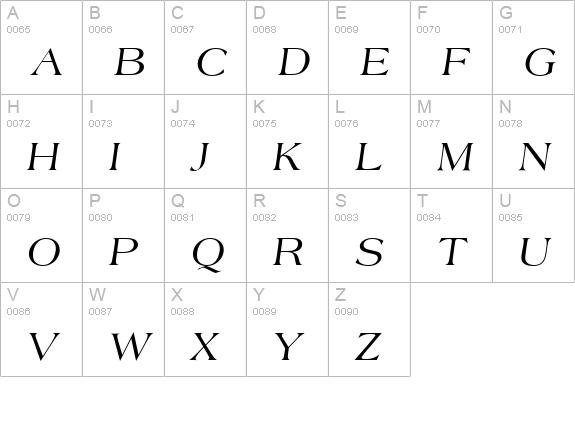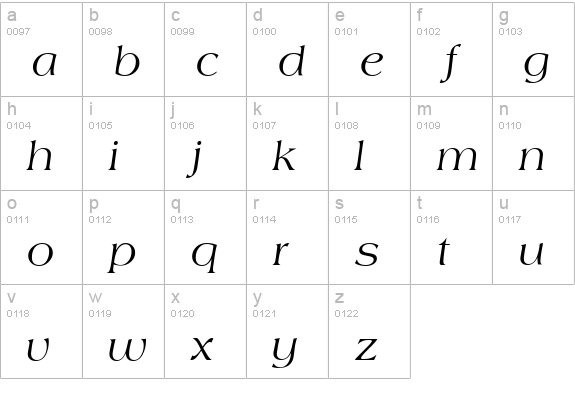
Almeria-Italic Font Details
Almeria-Italic is a distinctive, italic variant in the Almeria typeface family \xE2\x80\x94 well suited to design and typography projects.
Almeria-Italic is a stunning and elegant font that exudes sophistication and style. Its slanted design gives a sense of movement and fluidity, making it perfect for adding a touch of class to any project. The intricate details and graceful curves of Almeria-Italic make it a versatile choice for a wide range of design applications. What sets Almeria-Italic apart is not only its beauty but also its accessibility. This exquisite font is available for free download at FontsMarket.com, allowing designers and creatives to access its charm without any cost. Whether you're working on a branding project, a wedding invitation, or a website design, Almeria-Italic is sure to elevate your work and leave a lasting impression. Embrace the elegance and sophistication of Almeria-Italic, a font that combines beauty and functionality effortlessly. Download your free copy today at FontsMarket.com and let your creativity shine with this exquisite typeface.